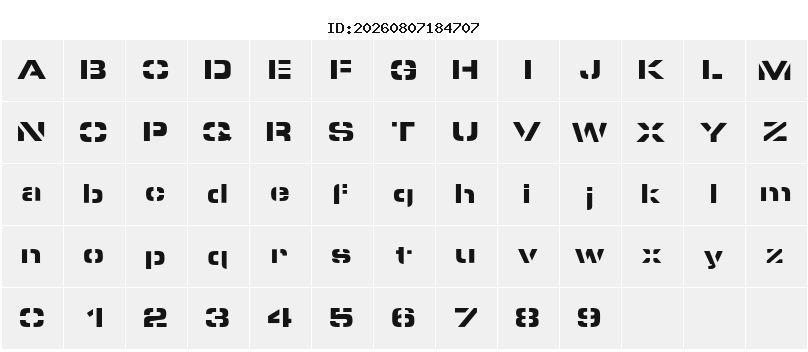
pyrostyle Preview
• Font Name: pyrostyle
• Font ID: Macromedia Fontographer 4.1.2 pyrostyle
• Full Font Name: pyrostyle
• Version: Macromedia Fontographer 4.1.2 24.01.2001
• PostScript Name: Pyrostyle
• Character Count: 92
About pyrostyle.ttf
pyrostyle.ttf is a modern, elegant sans-serif font designed for ultimate readability and visual harmony. Perfect for branding, headlines, web design, and print materials.